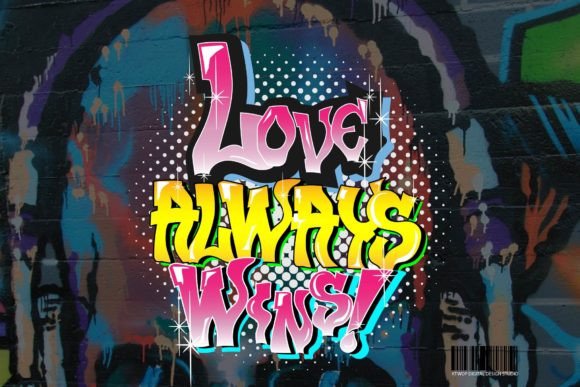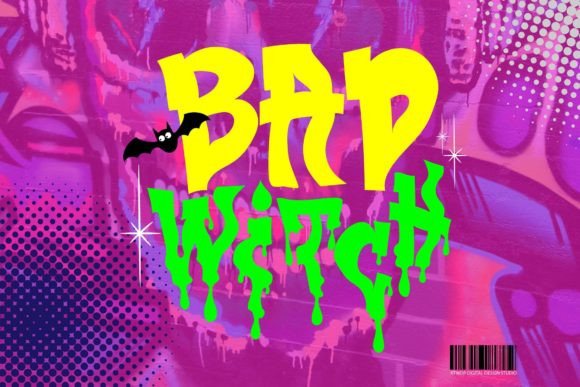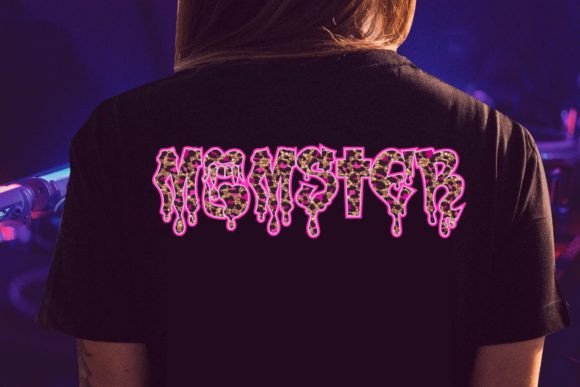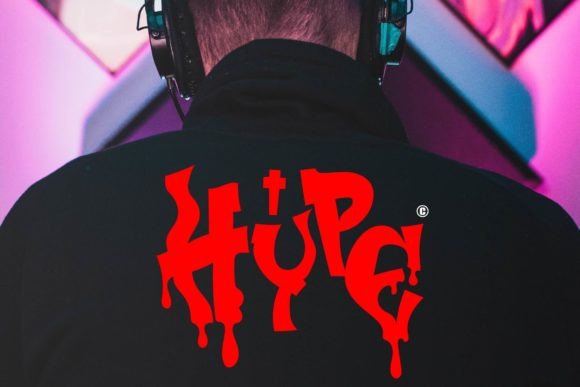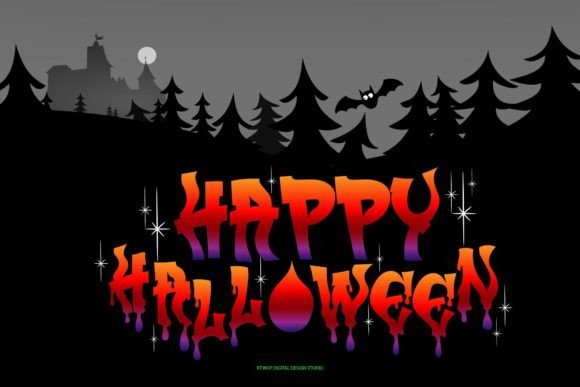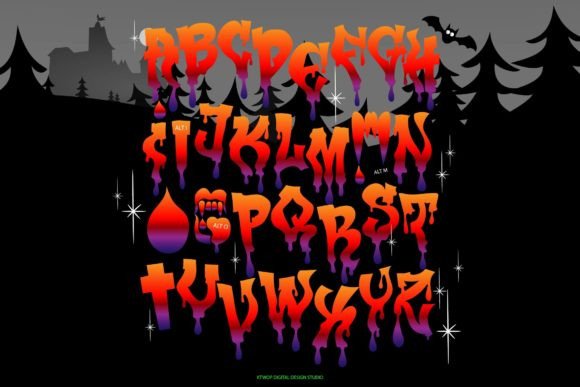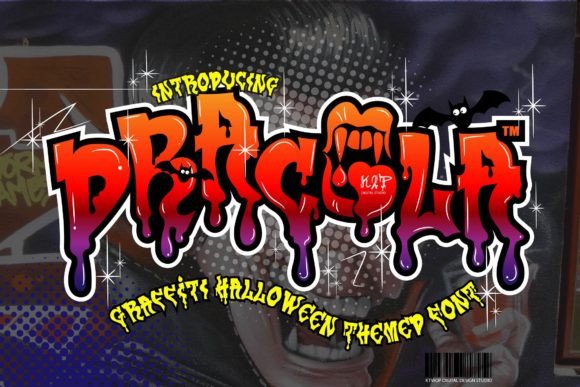
Dracula Font: The Spookiest Decorative Font for Halloween
As the spookiest time of the year approaches, designers and crafters are on the lookout for the perfect font to add a touch of eeriness to their Halloween-related projects. Look no further than the Dracula Font, a thick-lettered and spooky decorative font that’s sure to cast a spell on your audience.
What is Dracula Font?
Dracula Font is a unique and eye-catching font that’s specifically designed to evoke the spirit of Halloween. With its thick, bold letters and spooky decorations, this font is perfect for creating eye-catching titles, headings, and graphics for a variety of Halloween-themed projects.
Key Features of Dracula Font
- Thick-lettered and spooky design: The Dracula Font features thick, bold letters with a spooky and eerie design that’s sure to grab attention.
- Perfect for Halloween-related projects: Whether you’re working on a Halloween-themed craft, graphic design project, or website, the Dracula Font is the perfect choice.
- PUA encoded: The Dracula Font is PUA (Private Use Area) encoded, which means you can access all of the glyphs and swashes with ease.
- Limitless possibilities: With the Dracula Font, the only limit is your imagination. Use it to create spooky signs, creepy crafts, or eerie graphics – the possibilities are endless!
Why Choose Dracula Font?
So why choose the Dracula Font for your Halloween-related projects? Here are just a few reasons:
- Unique and eye-catching design: The Dracula Font features a unique and eye-catching design that’s sure to grab attention and add a touch of spookiness to your projects.
- Versatile: The Dracula Font is versatile and can be used for a variety of Halloween-themed projects, from crafts and graphics to websites and social media posts.
- Easy to read: Despite its bold and spooky design, the Dracula Font is easy to read, making it perfect for titles, headings, and other applications where readability is important.
Tips and Ideas for Using Dracula Font
Here are some tips and ideas for using the Dracula Font:
- Use it for titles and headings: The Dracula Font is perfect for titles and headings, adding a touch of spookiness to your projects.
- Create spooky signs: Use the Dracula Font to create spooky signs for your Halloween party or haunted house.
- Add it to your Halloween crafts: The Dracula Font is perfect for adding a touch of spookiness to your Halloween crafts, such as jack-o-lanterns, ghosts, and bats.
- Use it for social media posts: Use the Dracula Font to create spooky social media posts that will grab attention and add a touch of Halloween spirit to your feed.